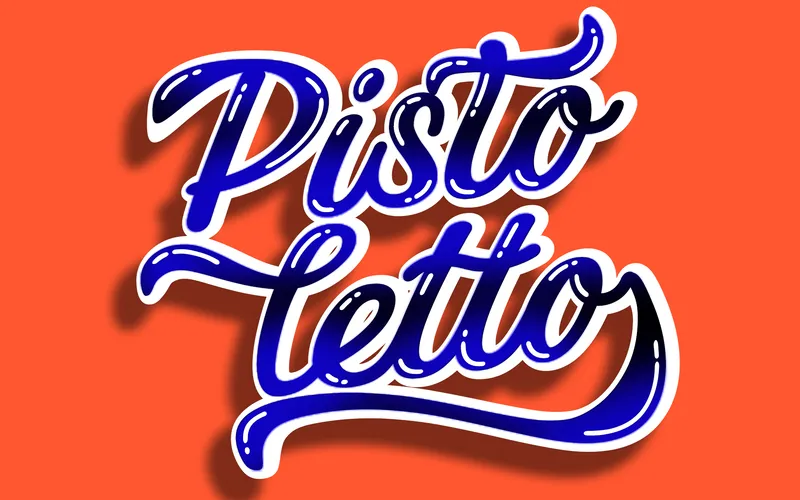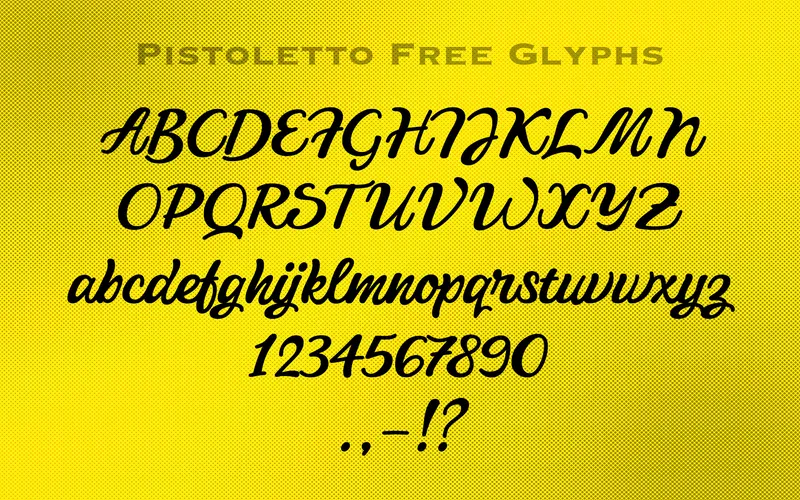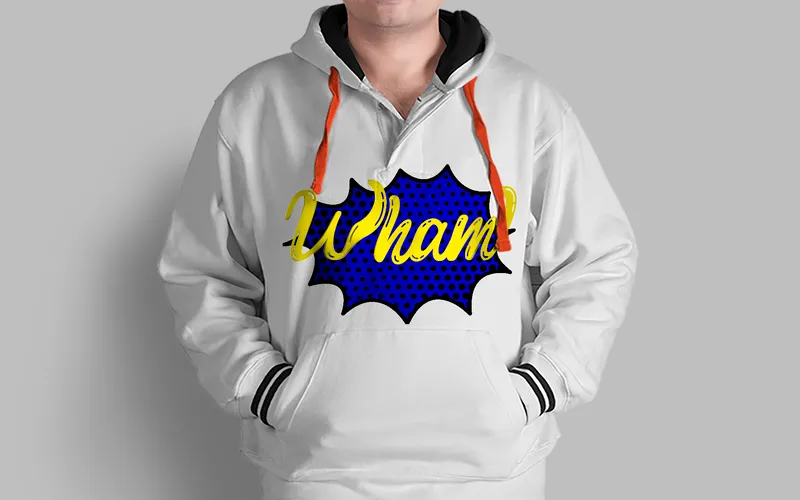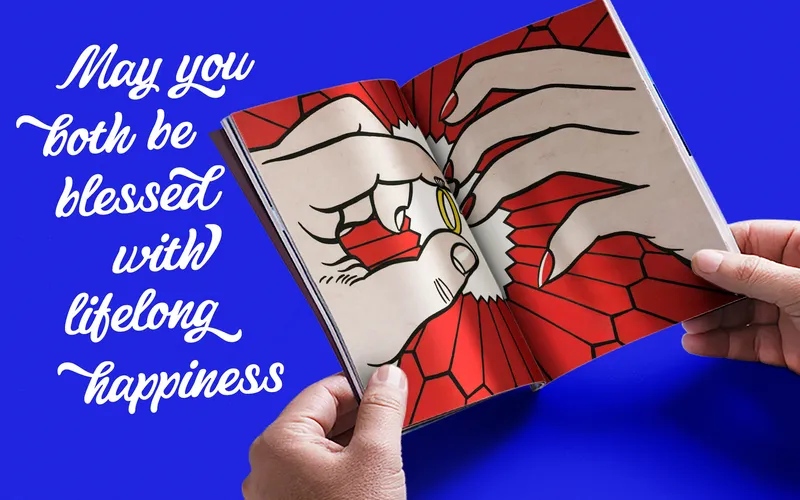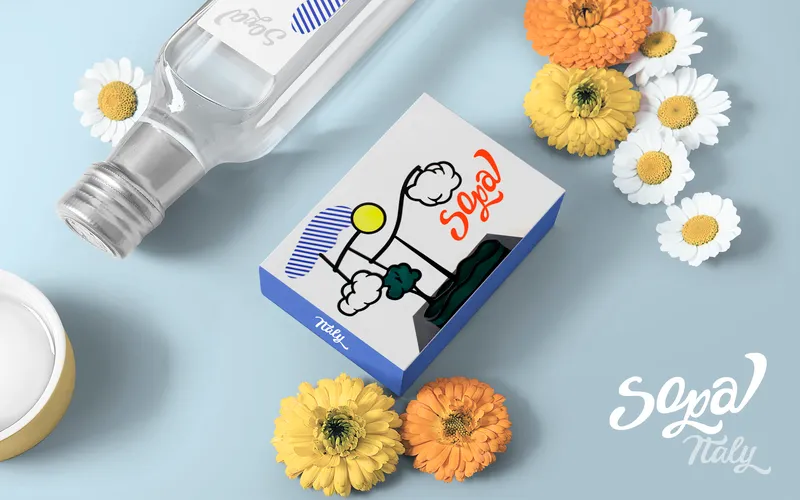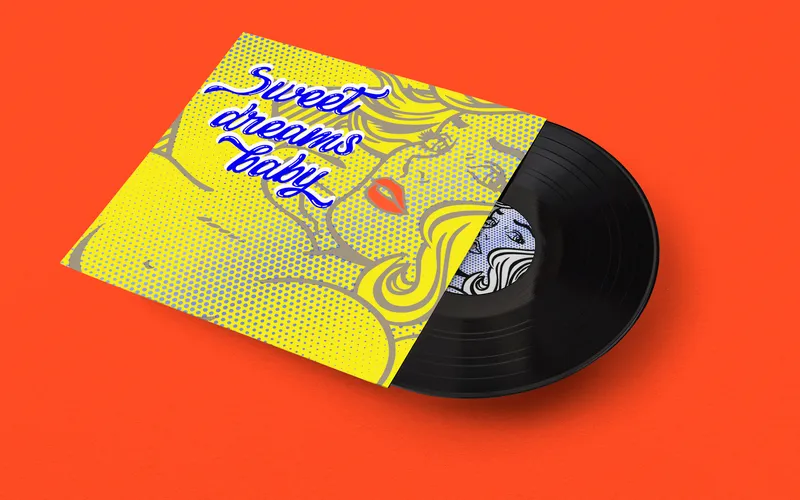
The Pistoletto Font Freebie
Elevate your work from good to great by selecting the Pistoletto font, the right font for your designs.
Furthermore, this font supports Basic Latin characters, ensuring it is highly functional across various applications.
This font brings clarity and style to creative projects, making it perfect for modern designs.
Whether you are working on branding, editorial designs, digital products, or any other type of design, this font ensures an effective output every time you use it.
You can avail the benefit of this font while designing a logo, a poster, a banner, or a web page, and make sure that they stand out.
Let's Sneak A Peek Into The Pistoletto Font!